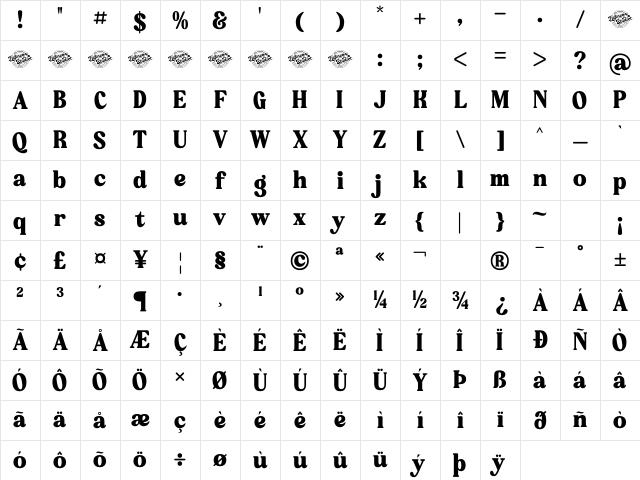
Bristle Radiant DEMO VERSION Regular Free Font
Bristle Radiant DEMO VERSION Regular
Foundry: Letterena Studios
Designer: Heru Utama Putra
Design Context for Bristle Radiant DEMO VERSION
Bristle Radiant DEMO VERSION is a composed and adaptable typeface that performs quietly and consistently across a wide range of design contexts.